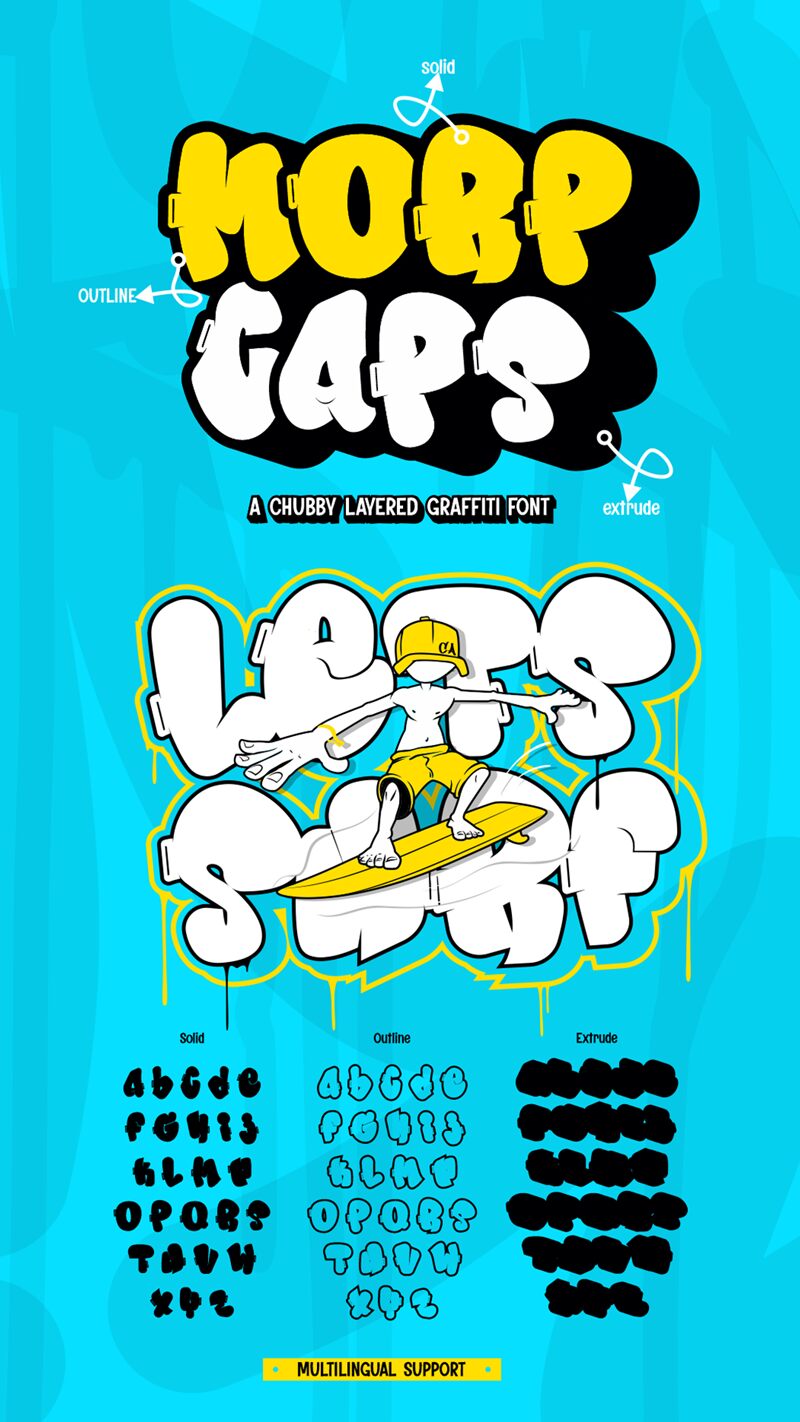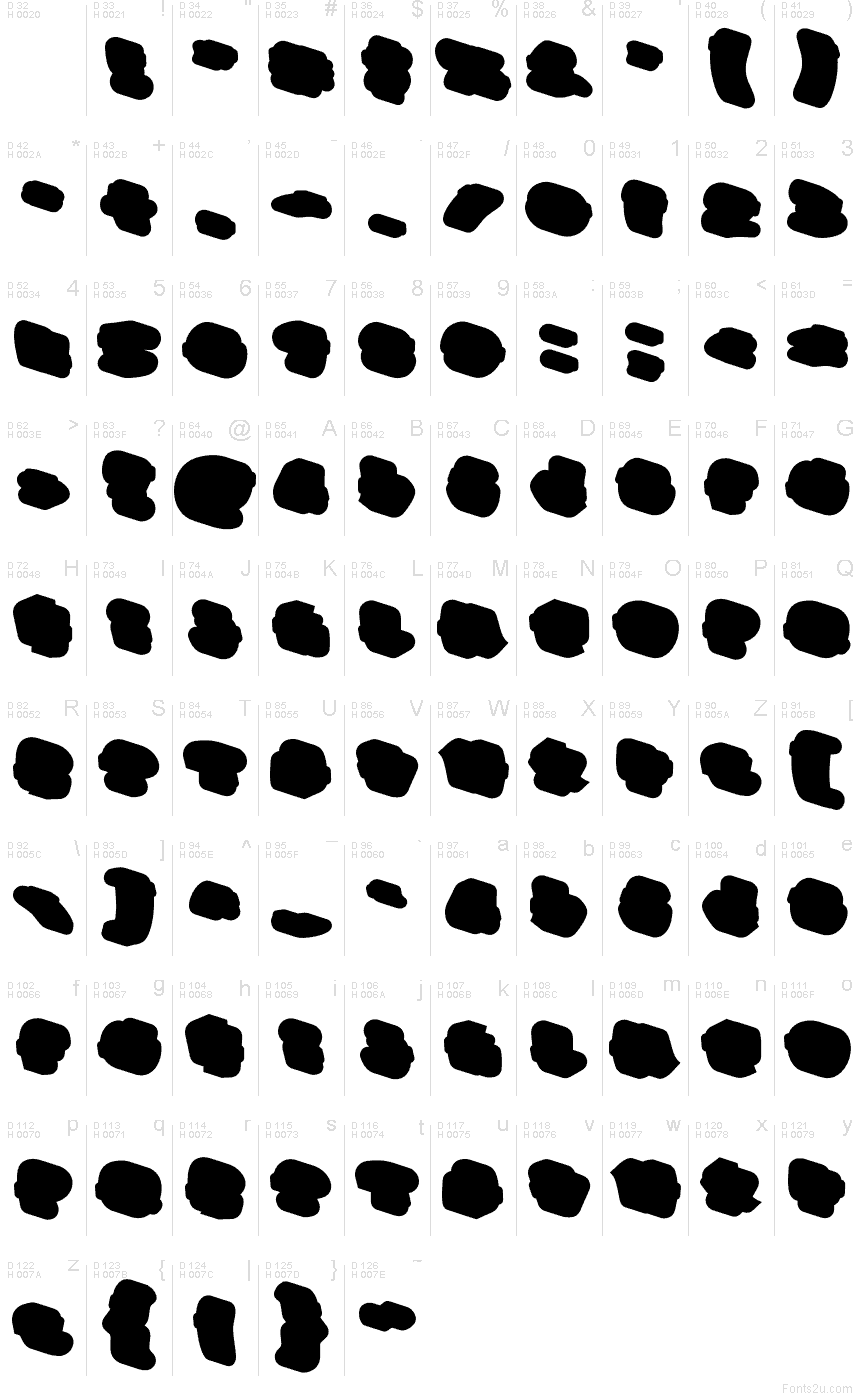
Morp Caps Extrude font by Rizal Yusepudin Salman & Muhammad Panji Ramdhani of Sipanji x Figuree in the Morp Caps Extrude family is a free graffiti font. It hits with fat, rounded caps that feel spray-painted, then punches forward with a chunky extruded shadow-like wet ink popping off a wall. The tight spacing keeps the rhythm punchy, so big words read loud without getting messy.
Using Morp Caps Extrude Extrude, you’ll get instant attitude on streetwear logos, skate posters, music covers, gaming thumbnails, sticker packs, YouTube titles, and event flyers. Set it large so the depth can breathe, and pair it with a clean condensed sans for the small details-this free font likes a sharp, quiet sidekick.